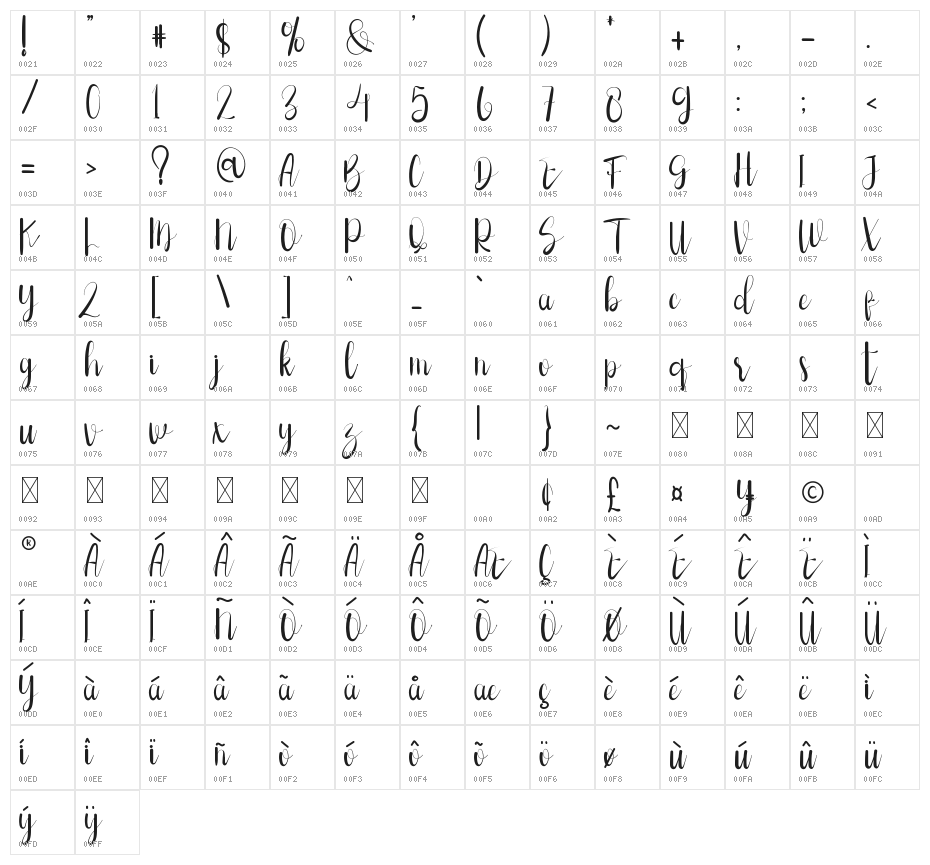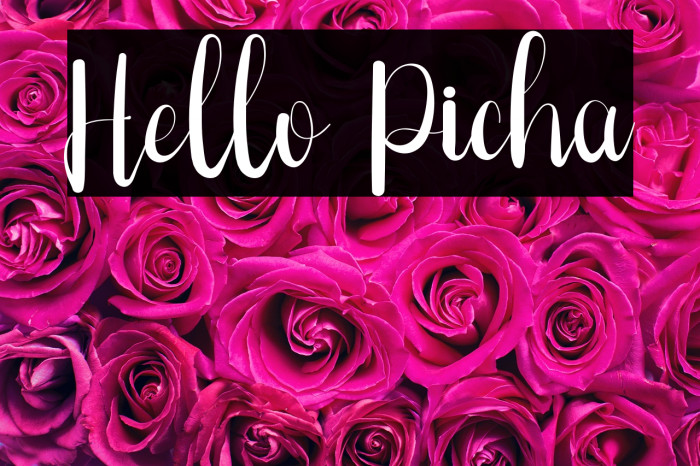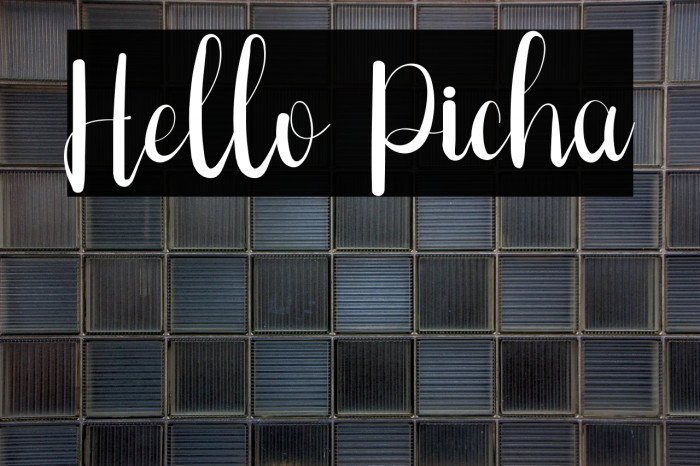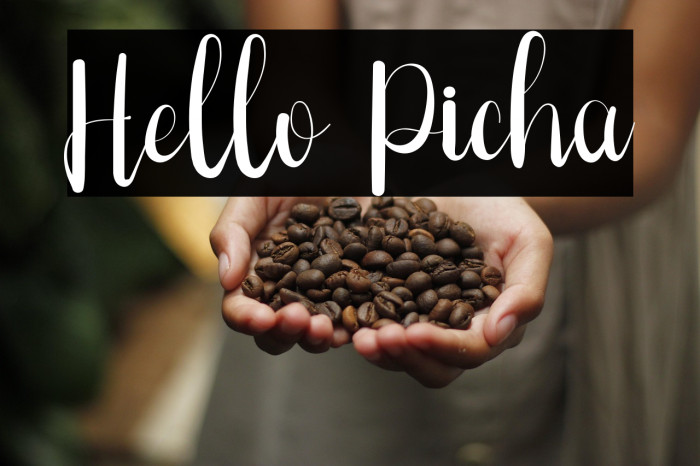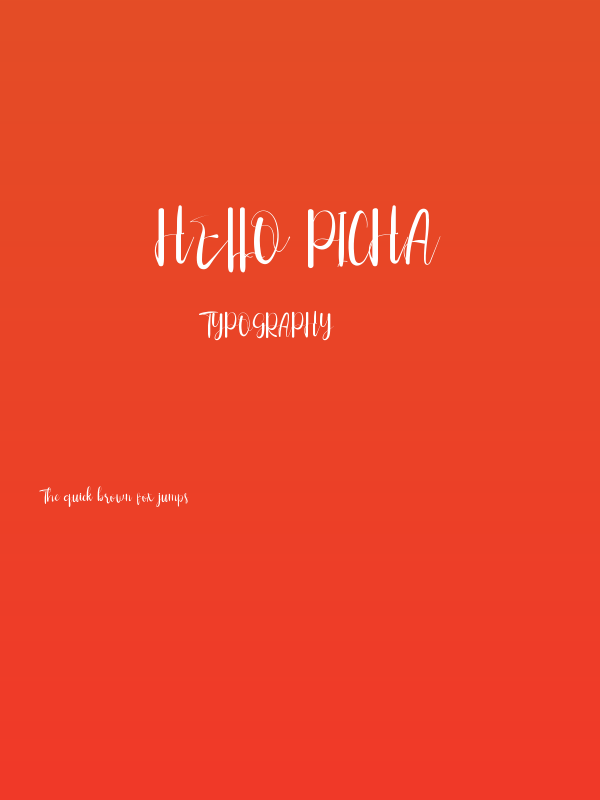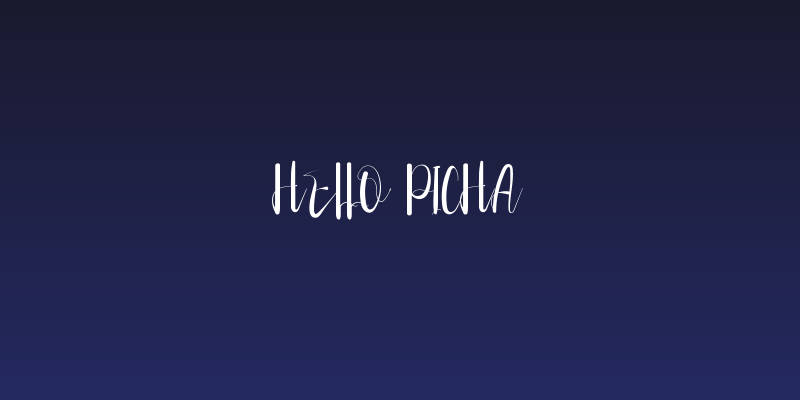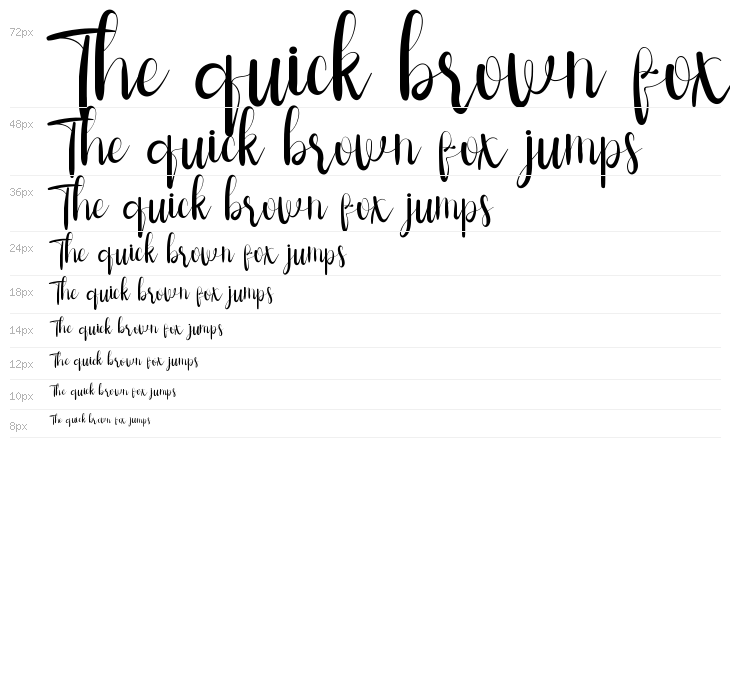
Hello Picha Font
Hello Picha Description
This font exhibits a lively and expressive handwritten style, characterized by its flowing, cursive letters. The uppercase letters are bold and dynamic, with sweeping curves and loops that give a sense of movement and elegance. The lowercase letters maintain this fluidity, with a slightly more delicate touch, enhancing the overall graceful appearance. Numbers and special characters are crafted with the same attention to detail, ensuring consistency across all elements. The font's playful yet sophisticated nature makes it suitable for creative projects that require a personal touch.
| Use Case | Logos, Invitations, Artistic projects |
| Proposed Projects | Ideal for wedding invitations, greeting cards, personal branding, and artistic posters. |